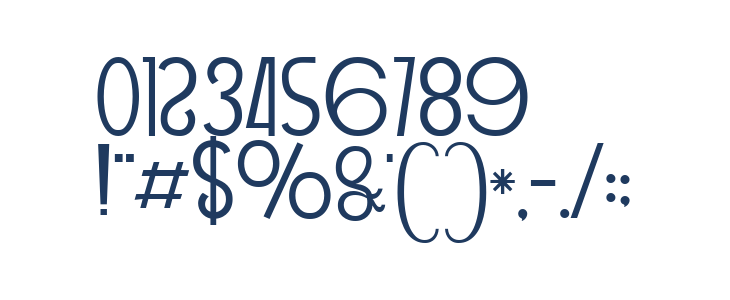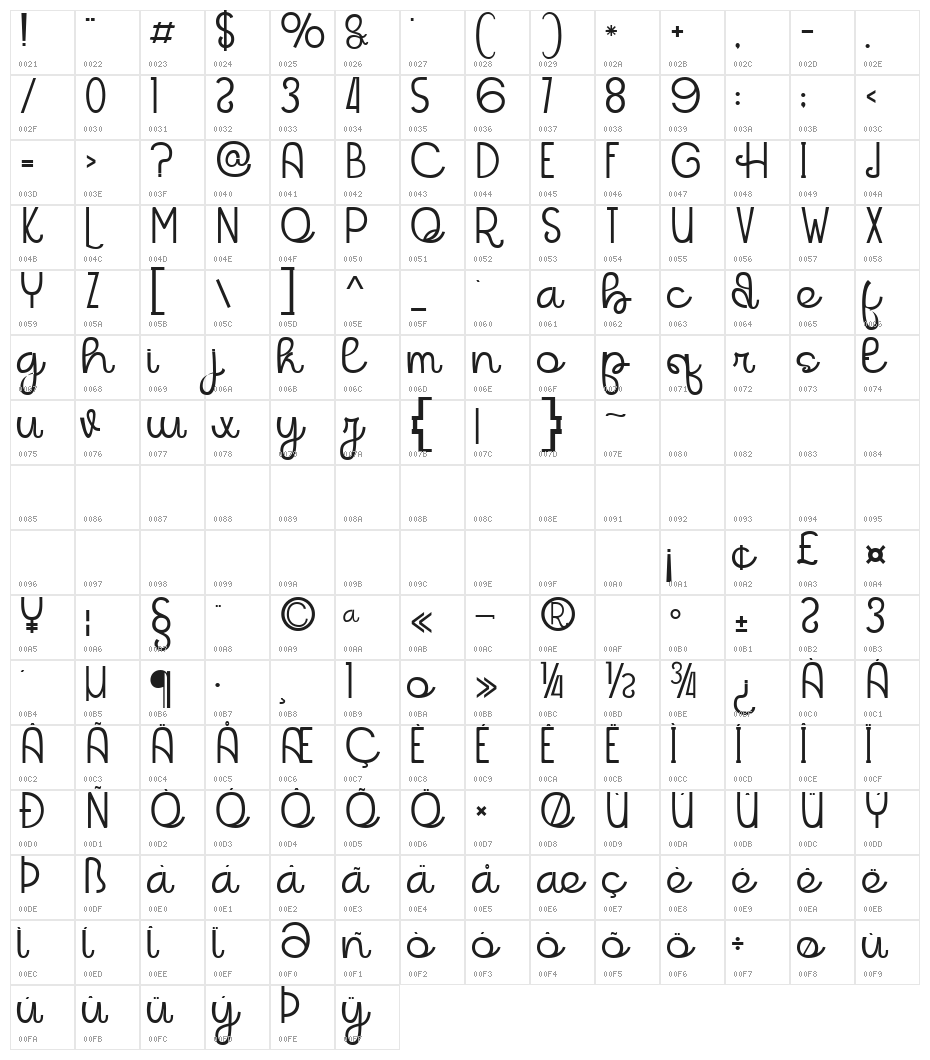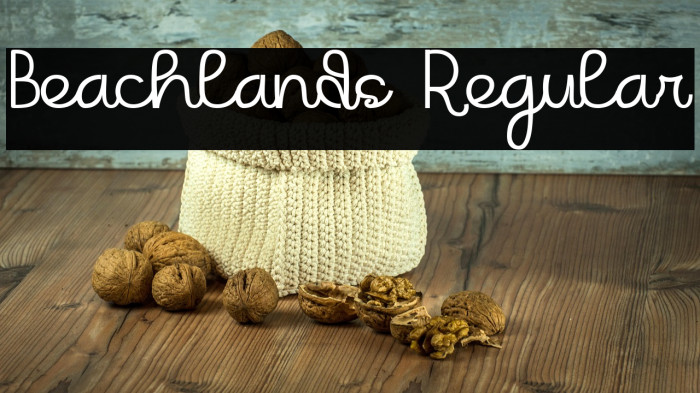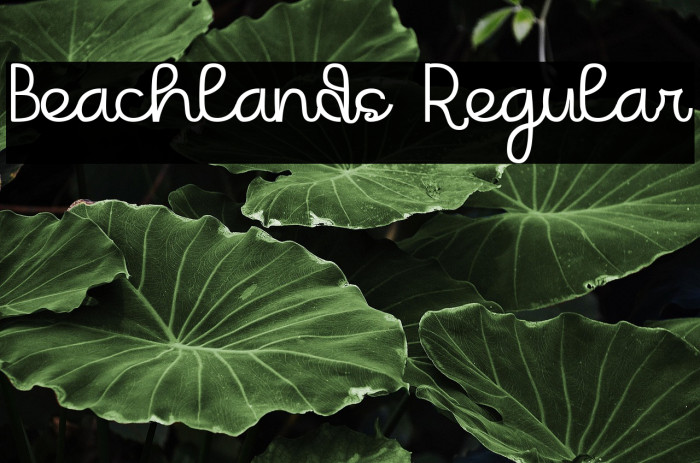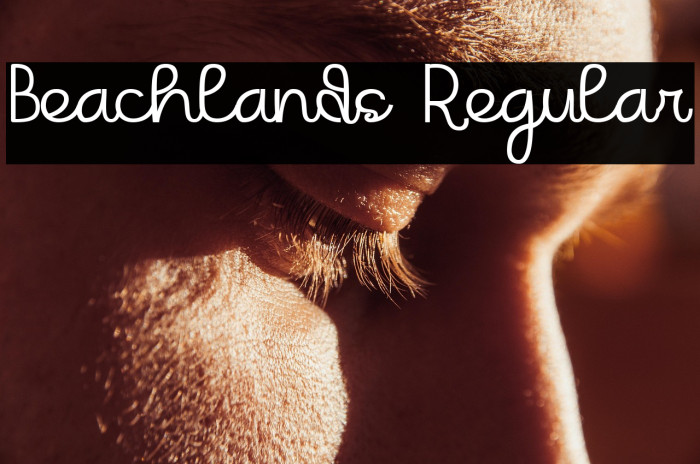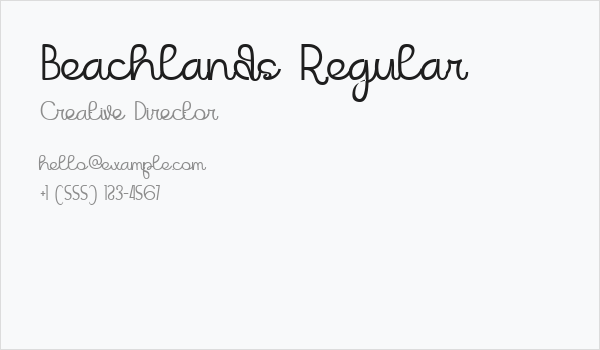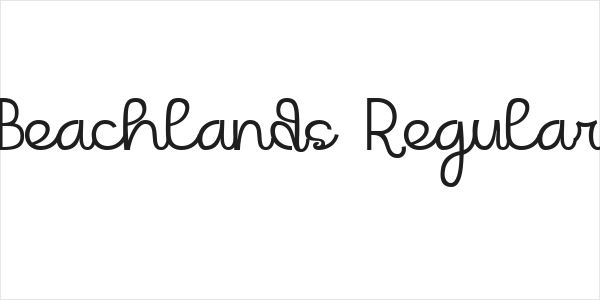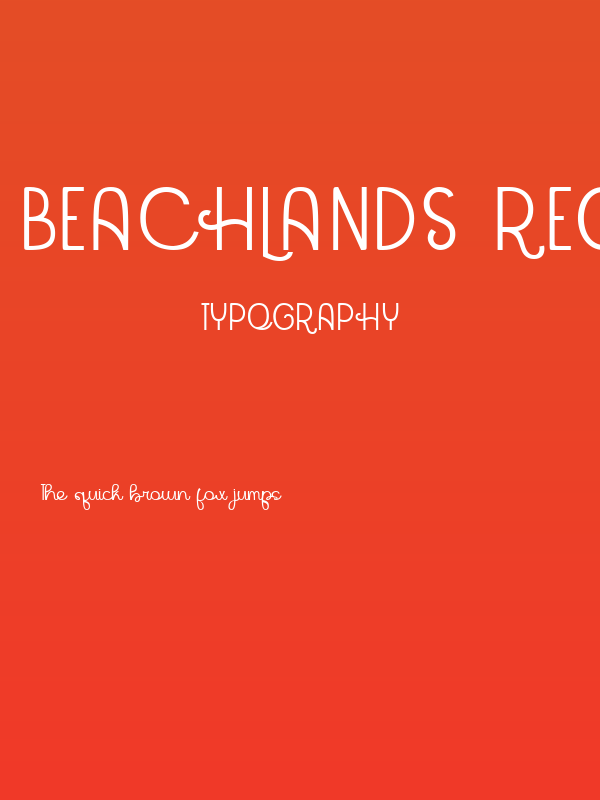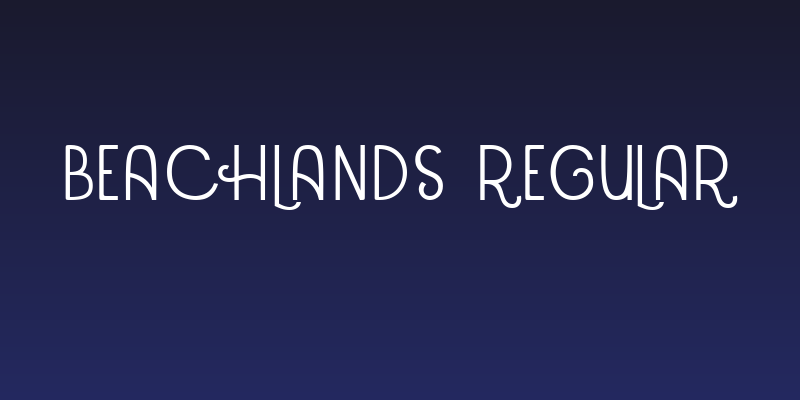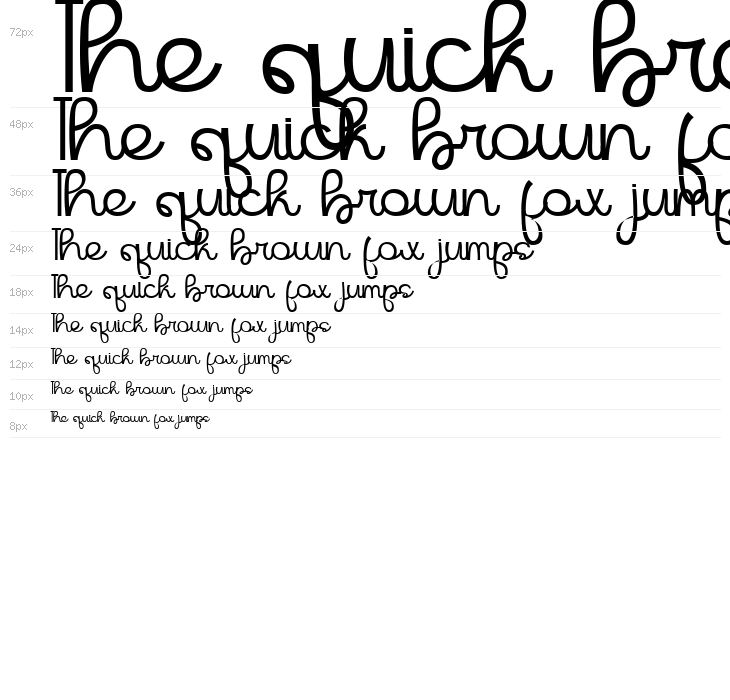
Beachlands Regular Font
Beachlands Regular Description
This font features a playful and whimsical design, characterized by its unique blend of curves and straight lines. The uppercase letters are bold and slightly condensed, with distinctive loops and swirls that add a touch of elegance. The lowercase letters continue this theme with a more pronounced cursive style, creating a harmonious flow. Numbers are bold and rounded, maintaining the playful aesthetic. Special characters are creatively designed to match the overall style, making this font ideal for creative projects. The font's overall appearance is both modern and decorative, making it suitable for a variety of uses.